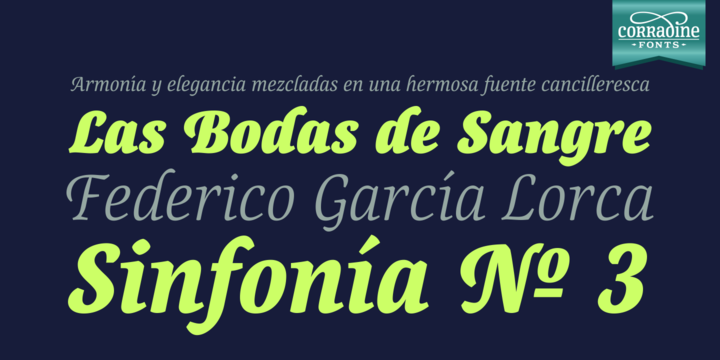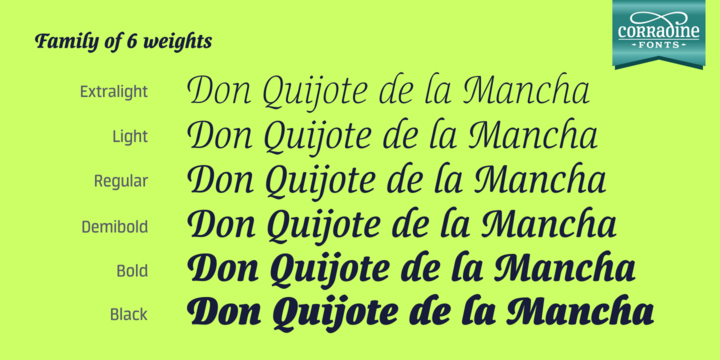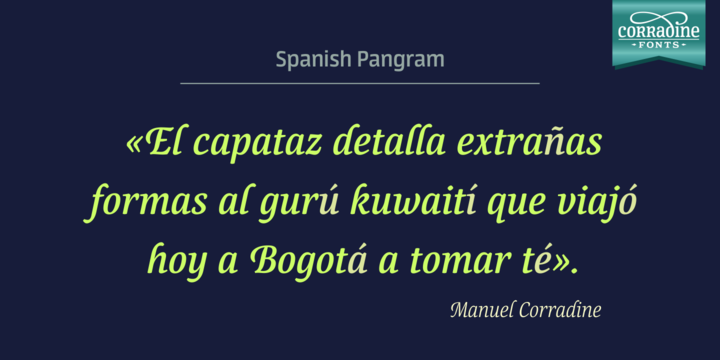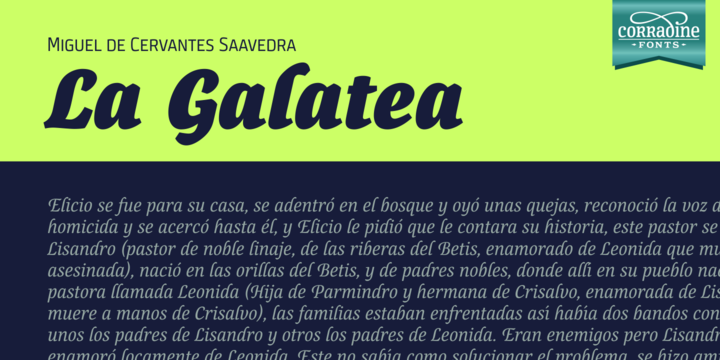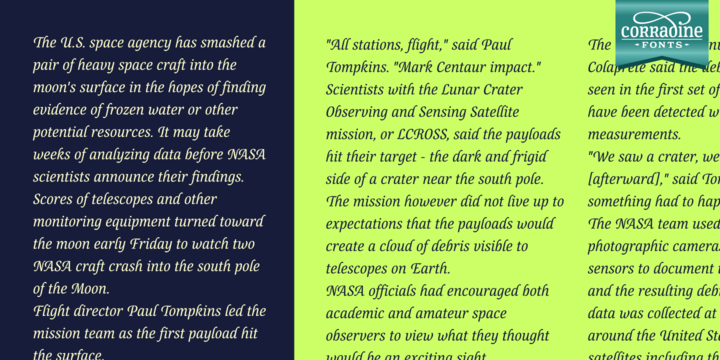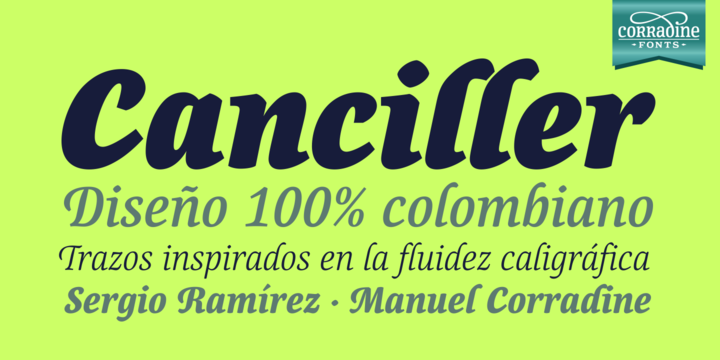
The Elegance of Canciller: A Comprehensive Guide to this Stunning Typeface Family
I’ll never forget the design project that led me to discover the Canciller typeface family. I was working on a branding project for a luxury boutique hotel, and I was struggling to find the perfect font that exuded elegance and sophistication. The client wanted a font that was not only beautiful but also highly legible, and I was on a mission to find it. That’s when I stumbled upon Canciller, and it instantly became my go-to font for the project.
A Personal Review: What I Love About Canciller
Canciller is a true gem in the world of typography. Here’s what I love about it:
- ✨ Elegant and refined design: Canciller’s calligraphic flair makes it perfect for high-end branding projects.
- ✅ Exceptional legibility: The font’s typographic features ensure that it’s easy to read, even at small sizes.
- 💡 Versatile: Canciller can be used for a wide range of projects, from luxury branding to elegant stationery.
While Canciller is an amazing font, there are a few quirks to be aware of:
- 🤔 Limited use of bold weights: While Canciller has a range of weights, the bold weights can be a bit overpowering. Use them sparingly to add emphasis.
- ⚠️ Glyph compatibility: Some glyphs may not work seamlessly with certain design software. Always test the font before finalizing your design.
The Backstory of Canciller
Canciller was designed by a renowned typographer who aimed to create a font that combined the elegance of calligraphy with the legibility of typography. The designer’s inspiration came from traditional calligraphic scripts, with a modern twist to make it suitable for a wide range of applications.
| Author | Corradine Fonts |
Here are some questions I’ve encountered about Canciller:
- Q: Is Canciller suitable for body text?
- A: While Canciller is elegant, it’s best used for headlines and titles. For body text, consider a more traditional serif or sans-serif font.